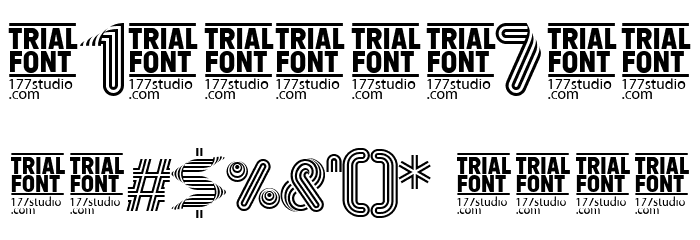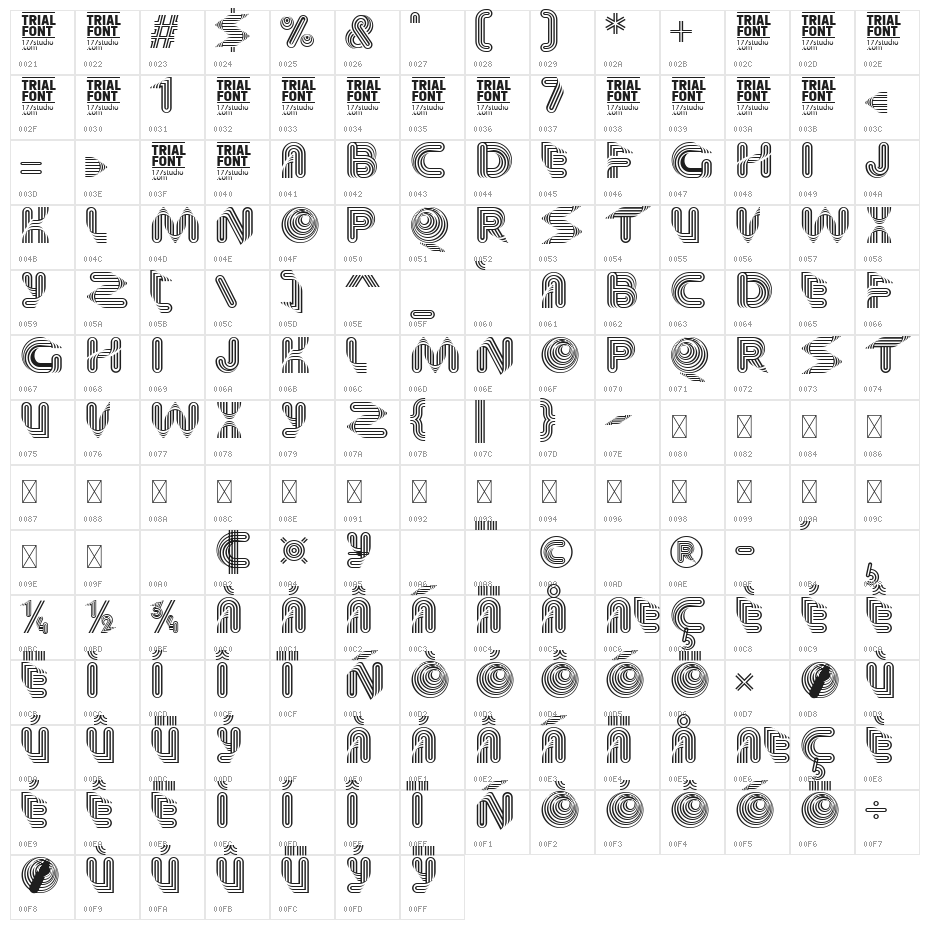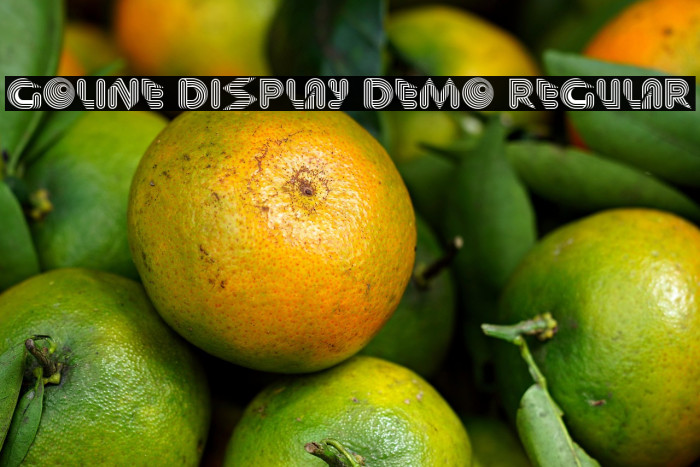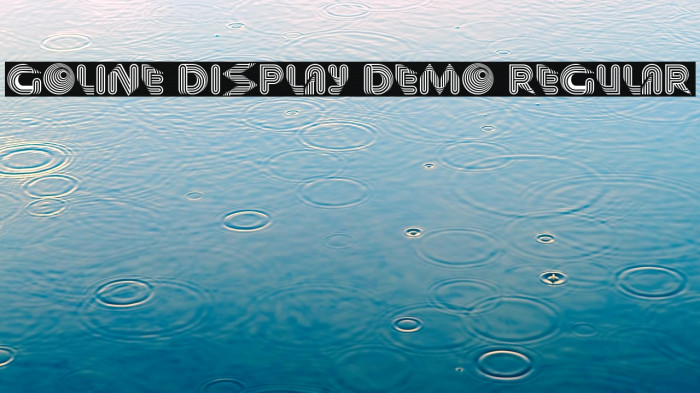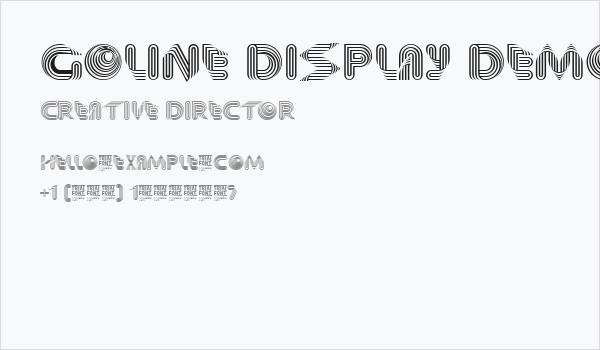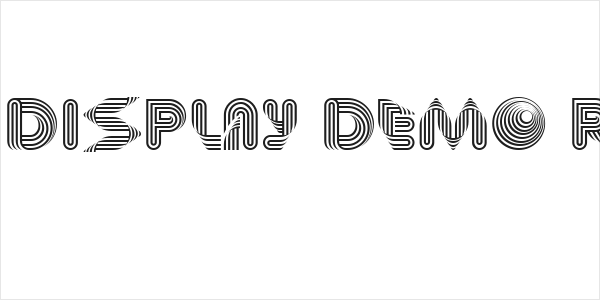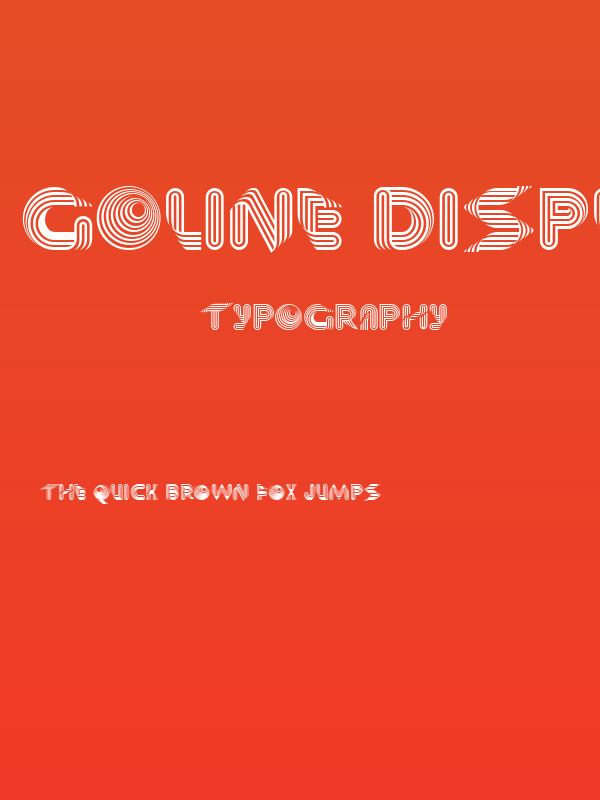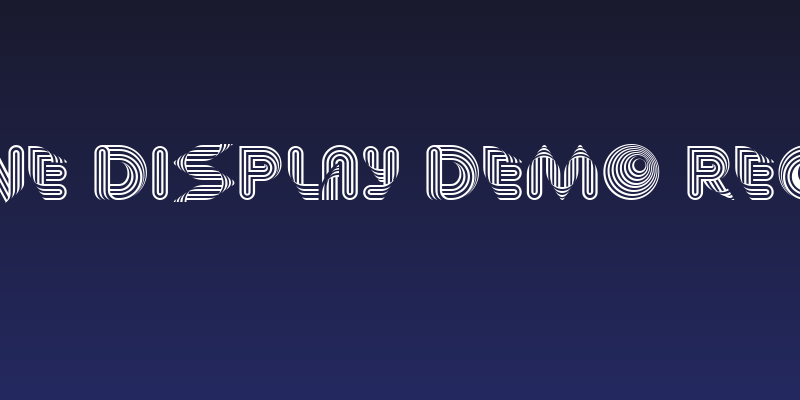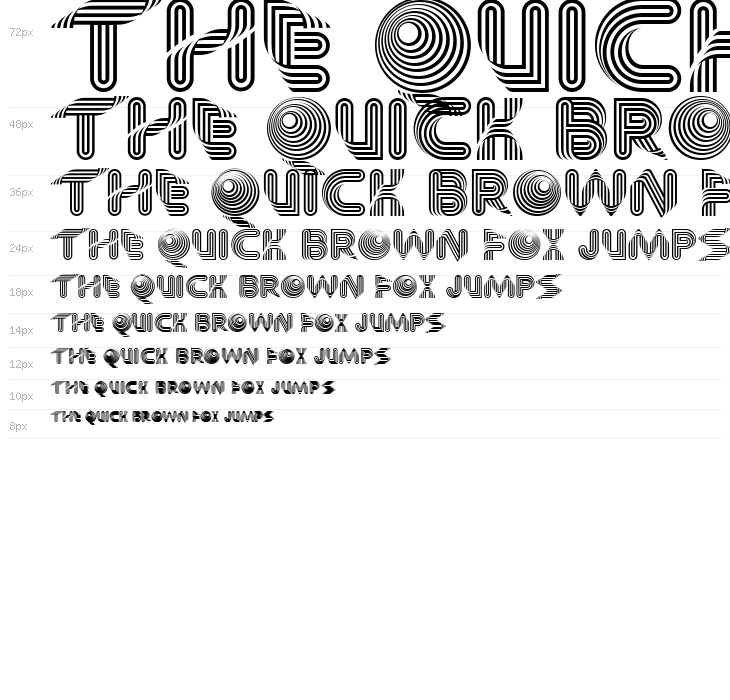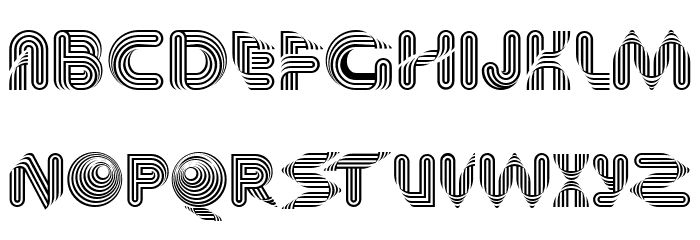
Goline Display Demo Regular Font
Goline Display Demo Regular Description
This font features a unique and modern design with a distinct striped pattern running through each character. The letters are bold and eye-catching, making them ideal for display purposes. The uppercase and lowercase letters maintain a consistent style, with the stripes creating a sense of movement and dynamism. The numerals and special characters follow the same design principles, ensuring a cohesive look across all elements. This font's striking appearance makes it suitable for projects that require a bold and contemporary aesthetic.
| Proposed Projects | Ideal for branding, posters, album covers, and any project that requires a strong visual impact. |